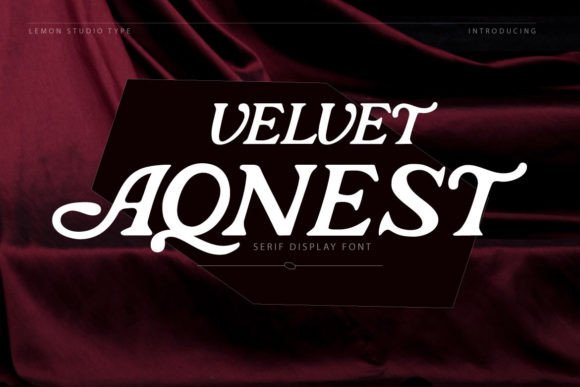
Immerse yourself in a world of timeless elegance with the Velvet Aqnest Font, a captivating serif masterpiece that exudes vintage charm with a contemporary twist. Step into a realm of nostalgia and sophistication as you embrace the beauty of this font, meticulously crafted to ignite creativity and captivate your audience.
With its intricate curves and delicate serifs, Velvet Aqnest captures the essence of classic design, bringing a touch of history and romance to your digital creations. Whether you seek to create a timeless logo, a captivating magazine layout, or an impactful website heading, Velvet Aqnest stands as your perfect companion, guiding you towards design excellence.
As you explore the possibilities of Velvet Aqnest, you'll discover its remarkable versatility, effortlessly blending with various design styles. From sleek and modern to vintage and whimsical, this font possesses the unique ability to elevate your projects to new heights, transforming your words into captivating works of art.